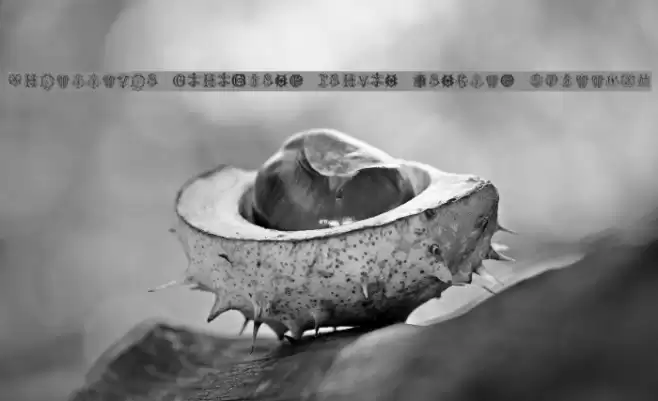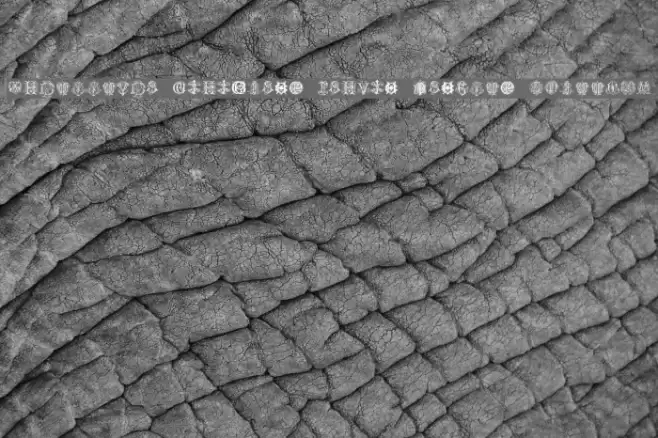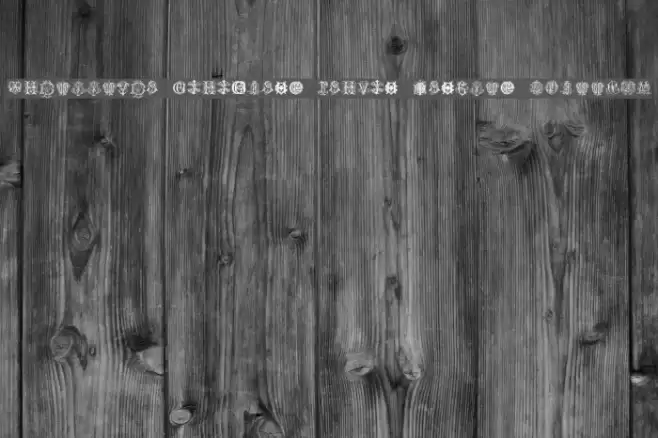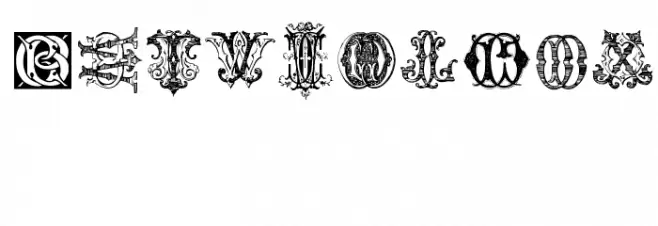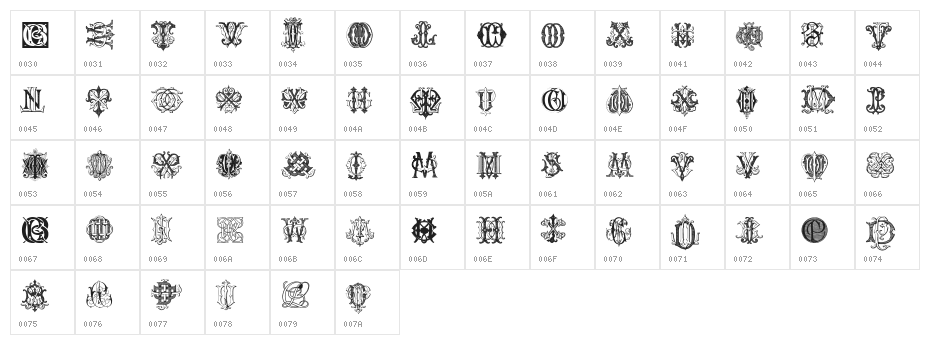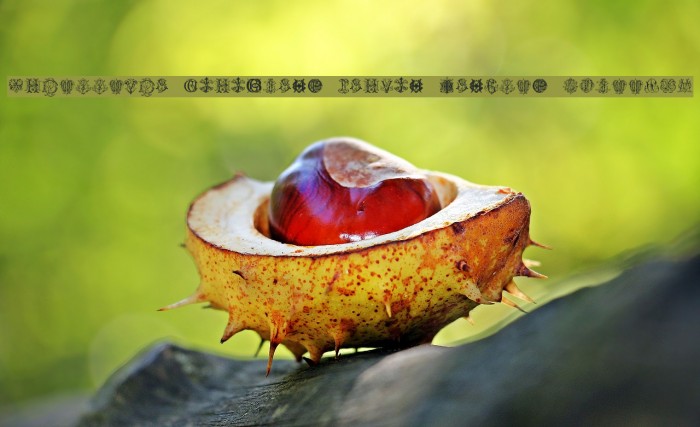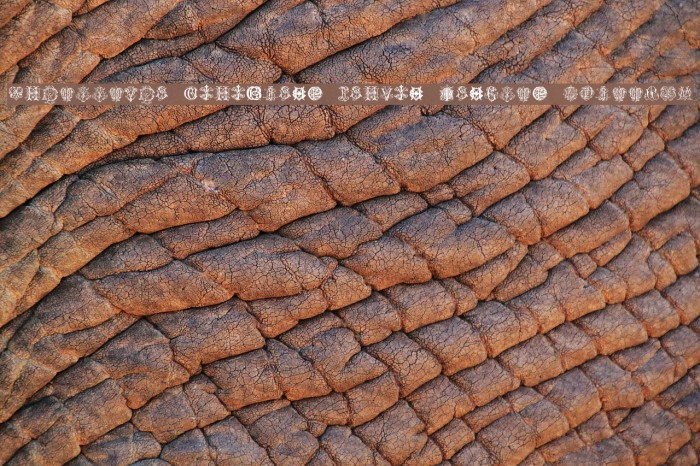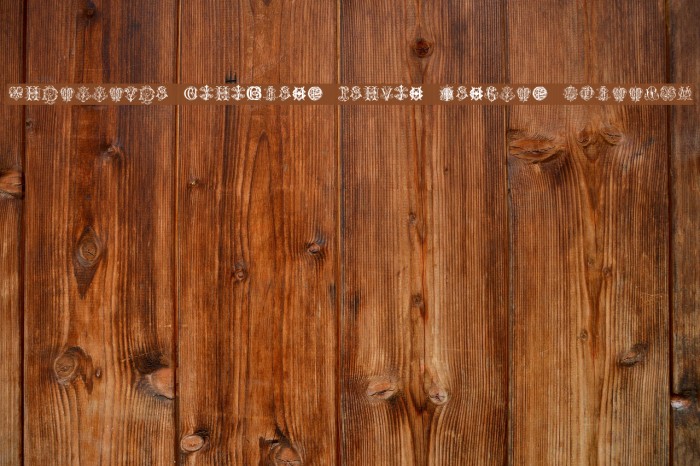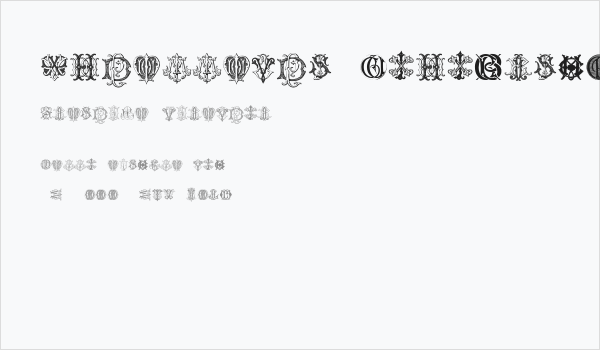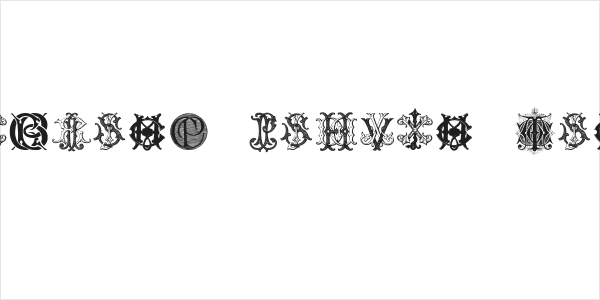
This font is a highly decorative and intricate monogram style, featuring elaborate and ornate designs for each letter. The characters are embellished with flourishes, swirls, and detailed patterns, creating a sense of elegance and sophistication. Each letter is unique, with complex interwoven elements that give it a luxurious and vintage feel. The font is reminiscent of historical manuscripts and classical engravings, making it ideal for projects that require a touch of grandeur and tradition.
An ornate and intricate monogram font with elaborate designs from Uncategorized fonts.
- Proposed Projects: Ideal for wedding invitations, luxury branding, historical themed projects, and decorative monograms.
- Overall Style: Vintage
- Use Case: Logos, Decorative elements, Invitations